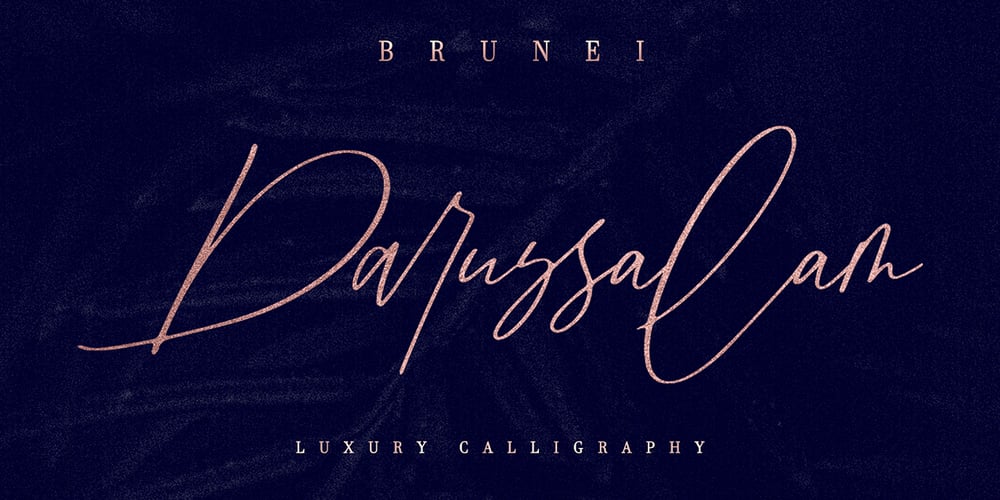
Brunei Darussalam
Brunei Darussalam font
Brunei Darussalam Font Family was designed by Hafis Hidayat and published by HafisHidayat. Brunei Darussalam contains 1 styles and family package options. Introducing Brunei Darussalam, a fashionable and luxury handwriting font, which looks like a signature. This font is intentionally made with unique ligatures and alternates.Brunei Darussalam is perfectly suited for branding, logos, business cards, posters, invitations, greeting cards, news, product packaging, blog posters and more.This font is also equipped with unique and interesting ligatures, by using this ligature you can give a real handlettered style.Multi-Language support:ŠÀÁÂÃÄÅÆÇÈÉÊËÌÍÎÏŸŽÐÑÒÓÔÕÖØÙÚÛÜÝßàáâãäåæçèéêëìíîïñòóôõöøùúûüýÿŒœšžThank you for your purchase!